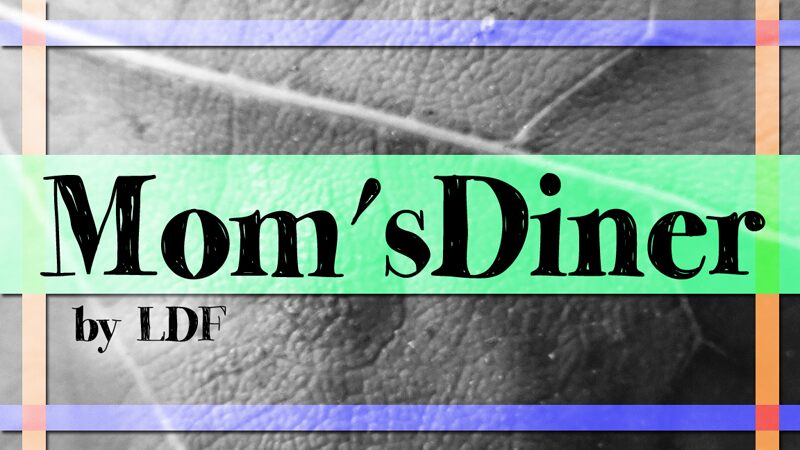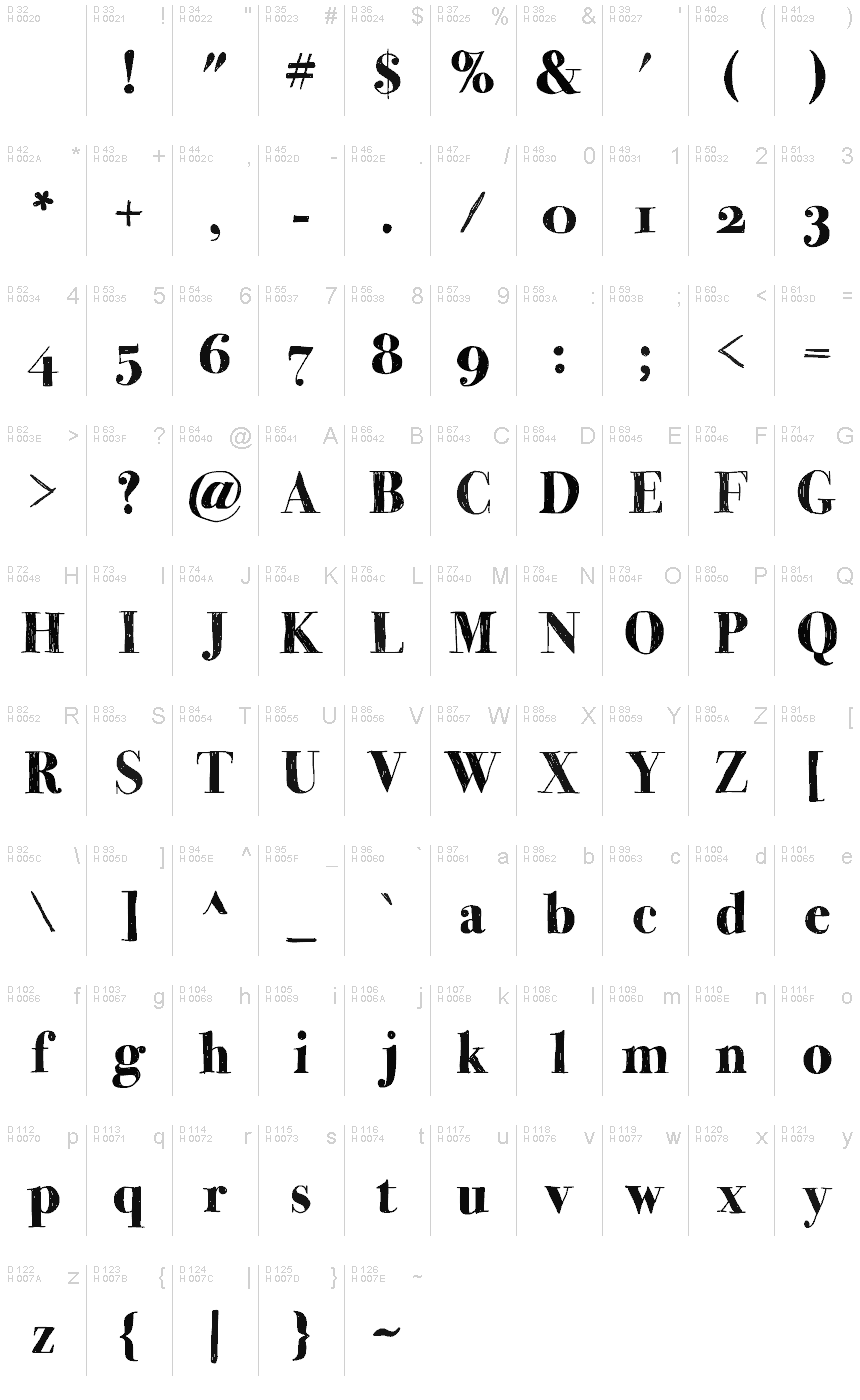
MomsDiner
Embodying a captivating blend of vintage charm and rugged resilience, "Mom's Diner" is a bold and distinctive display font crafted by the talented designer, Jake Luedecke. With its eroded, high-contrast lines and robust, attention-grabbing presence, this font exudes a sense of timeless nostalgia and gritty, industrial character.
Leveraging its strong, unapologetic aesthetic, "Mom's Diner" shines as a versatile choice for a wide range of design projects, from retro-inspired branding and packaging to eye-catching signage and event posters. Its striking visual impact and adaptable nature make it an ideal selection for capturing the essence of a classic diner, a rustic workshop, or a modern-day industrial chic aesthetic.